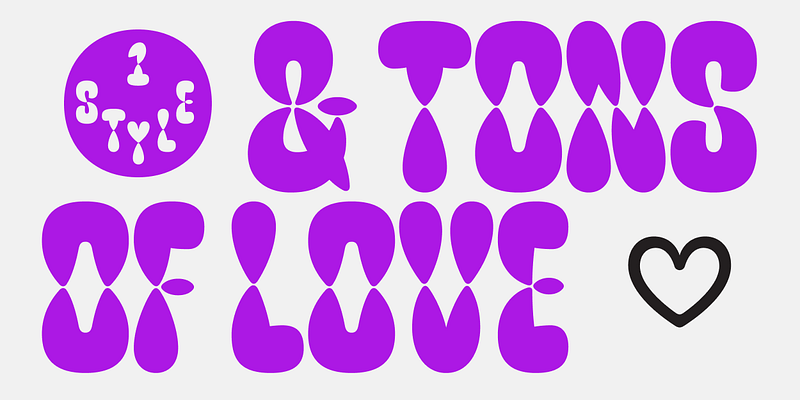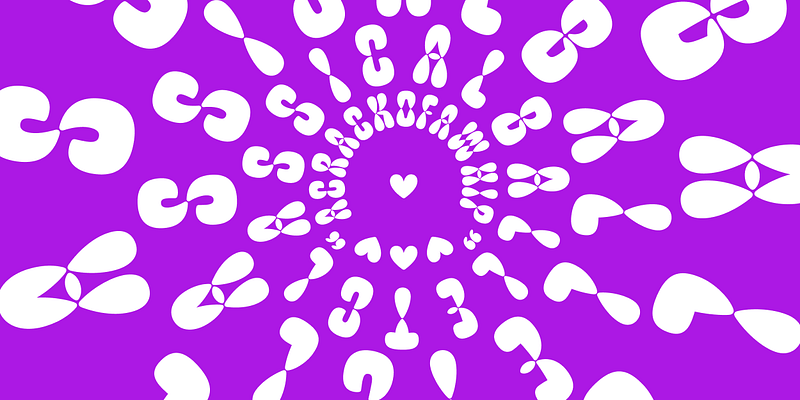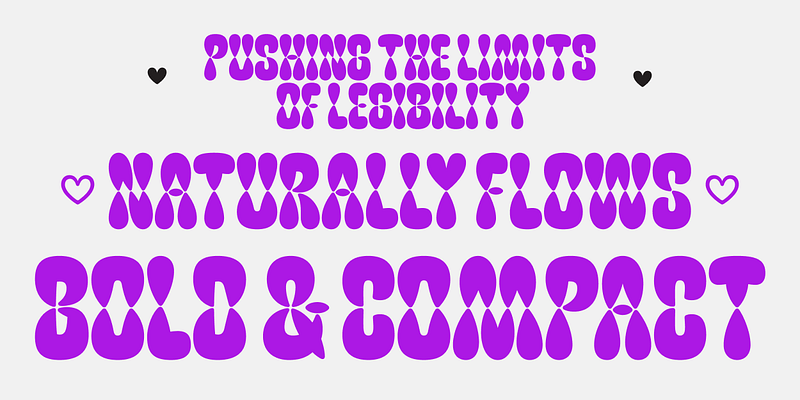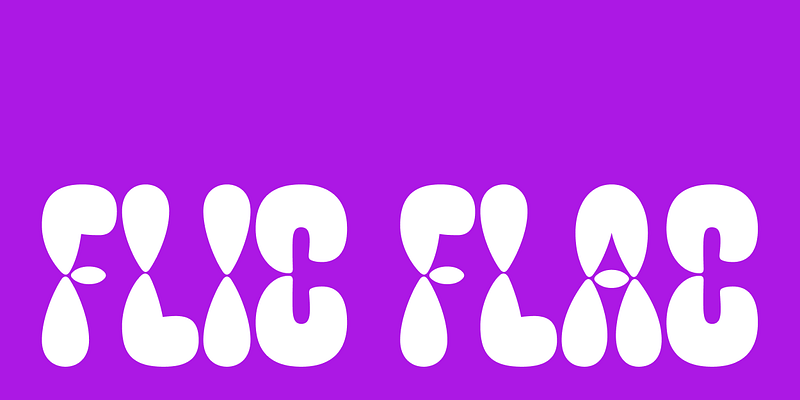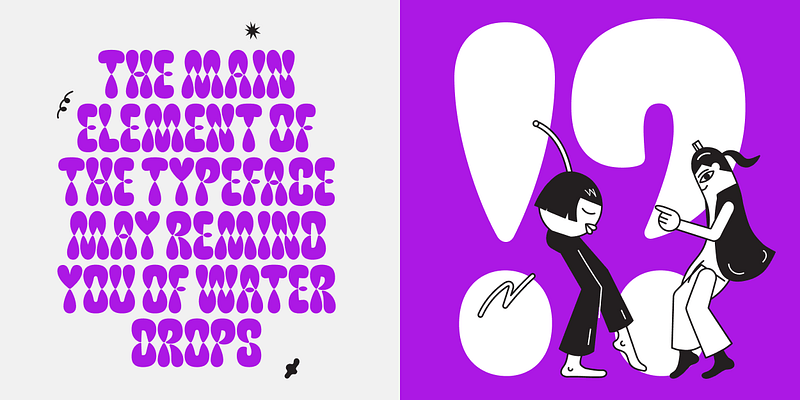
FlicFlac is an organic, soft and rhythmic typeface. It explores the idea of repetition, without following the strict rules of traditional stencil and modular designs. The harmonious shape that words create might deceive you into thinking all letters are made with the same building blocks, but hardly any element is repeated. It’s all about balancing the construction of each letterform with the overall plump and natural character. FlicFlac works perfectly as a statement font, within a word or a phrase that needs to grab the attention. But it’s rhythmic structure also creates extremely ornamental text textures worth experimenting with. On top of that its building blocks are ready to move and invite you to make them dance in animation. The main element of the typeface may remind you of water drops and it performs in the same organic way as water naturally flows. The elements tighten and come together in the middle of each letterform, without touching. In more complex characters these drops merge, creating new forms. Maintaining FlicFlac’s character throughout means pushing the limits of legibility. Maybe sometimes you would have to guess a letter from the context, but that is a sacrifice you can make, right? Because this typeface will always make you notice and make you listen to what it has to say.